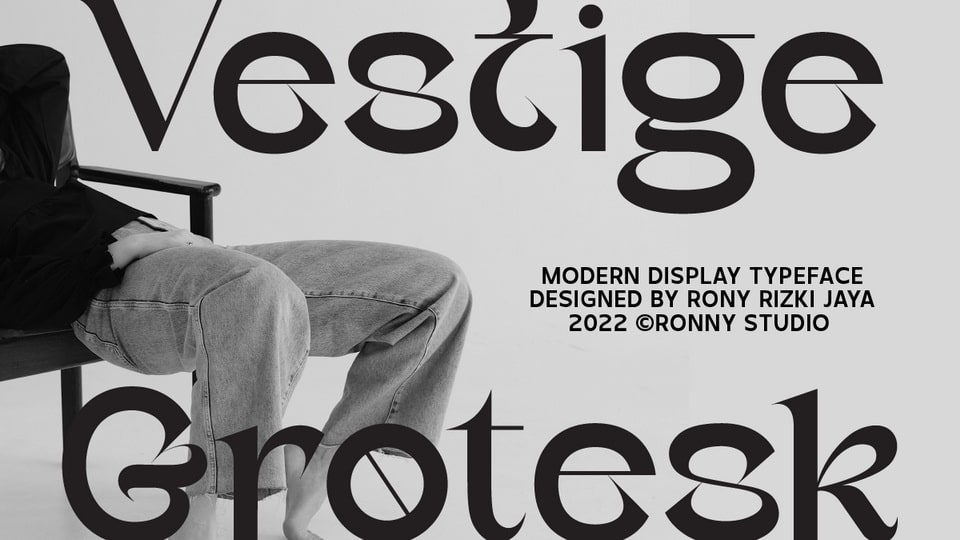
Download Vestige Grotesk font, a modern sans serif typeface. Vestige Grotesk font is an impressive and features a clean and elegant look, professionally shaped, and as a result, it will easily match a variety of creations that require a different touch.